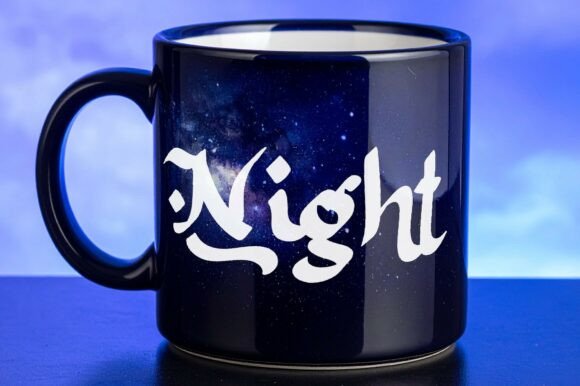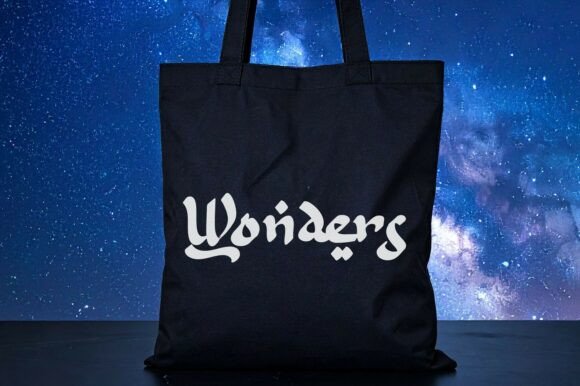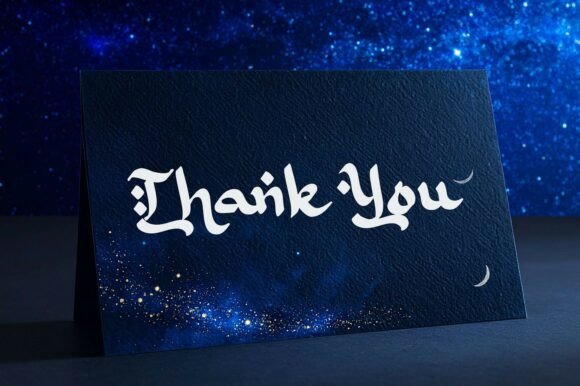
Unveiling the Enchanting Charm of Bulan Rajab Font
In the realm of typography, few fonts manage to evoke a sense of mystique, elegance, and cultural relevance as effectively as the Bulan Rajab Font. This exquisite display font is a masterful blend of traditional calligraphy and modern design elements, transporting users to a bygone era of sophistication and wonder. In this article, we’ll delve into the enchanting world of Bulan Rajab, exploring its unique features, design applications, and the creative possibilities it offers to designers and crafters.
The Essence of Bulan Rajab
Bulan Rajab is more than just a font – it’s an experience. Its elaborate calligraphic strokes, adorned with unique embellishments, evoke a sense of classic scripts and ancient traditions. The font’s meticulous construction exudes sophistication and cultural relevance, making it an ideal choice for projects that aim to inspire veneration, historical ties, or simply the intrigue of the unknown.
A Closer Look at Design Features
One of the standout features of Bulan Rajab is its comprehensive range of standard punctuation symbols. This ensures that designers have everything they need to create stunning visual content, from traditional ceremony invites to fantasy book covers and spiritual group logos. The font is also engineered for seamless synergy with leading design platforms such as Photoshop and Illustrator, making it easy to integrate into existing workflows.
Design Applications
So, how can designers and crafters make the most of Bulan Rajab? The possibilities are endless:
- Traditional Ceremony Invites: Add a touch of elegance and sophistication to wedding invitations, gala events, or cultural festivals with Bulan Rajab’s majestic calligraphy.
- Fantasy Book Covers: Transport readers to mystical realms with font that evokes a sense of ancient magic and wonder.
- Spiritual Group Logos: Create a lasting impression with a logo that embodies the values of tradition, spirituality, and community.
The Power of Typography
Bulan Rajab is more than just a font – it’s a storytelling tool. Its presence goes beyond mere aesthetics, empowering designers to craft compelling narratives that resonate with their audience. With Bulan Rajab, designers can:
- Evoke Emotions: Create a sense of nostalgia, wonder, or reverence with a font that speaks to the heart.
- Convey Heritage: Pay homage to cultural traditions and historical roots with a font that embodies the essence of classic scripts.
- Inspire Imagination: Transport audiences to fantastical worlds or spiritual realms with a font that sparks the imagination.
In conclusion, Bulan Rajab Font is a true masterpiece of typography, offering designers and crafters a unique opportunity to create visually arresting and narratively compelling content. With its enchanting charm, exquisite elegance, and cultural relevance, this font is poised to become a go-to choice for projects that demand sophistication, tradition, and wonder. Whether you’re designing traditional ceremony invites, fantasy book covers, or spiritual group logos, Bulan Rajab is the perfect tool to bring your creative vision to life.